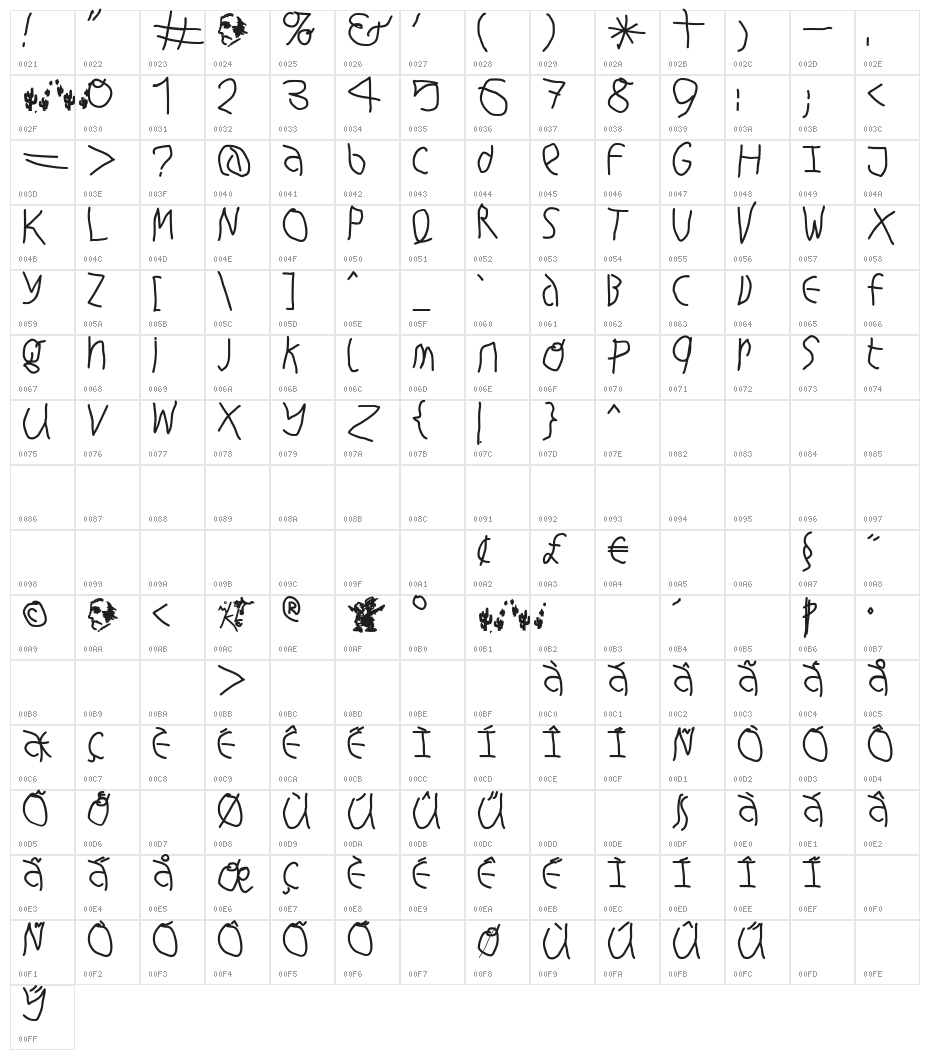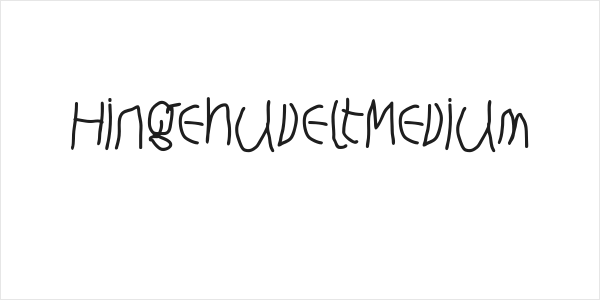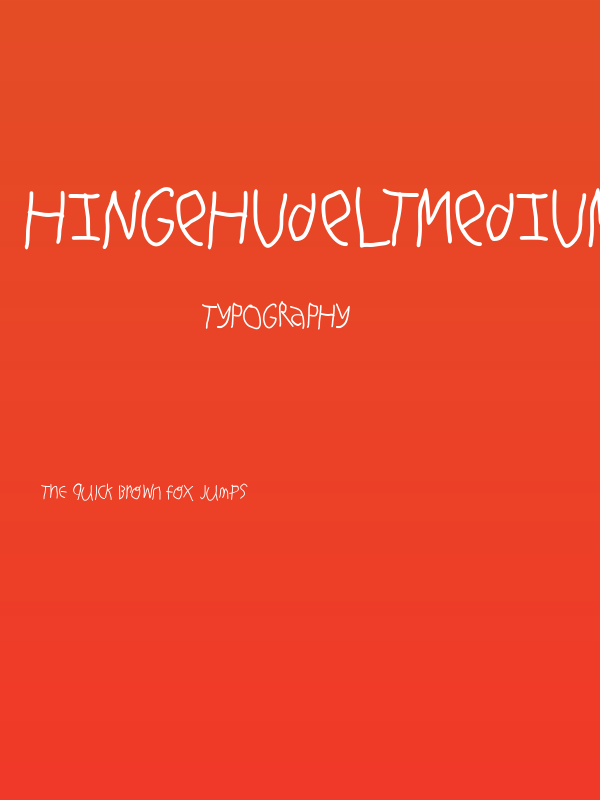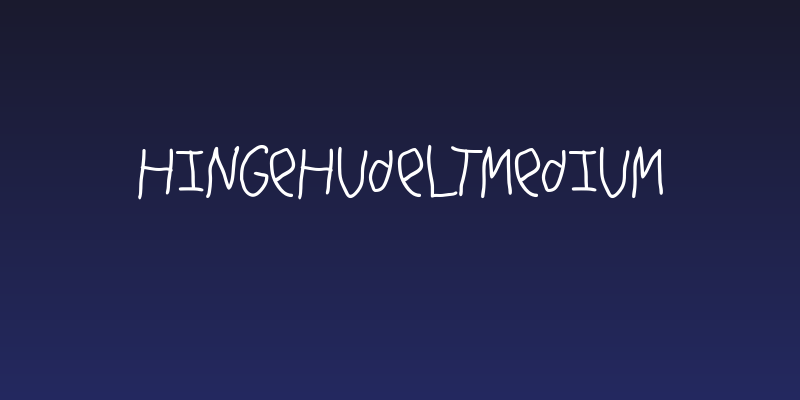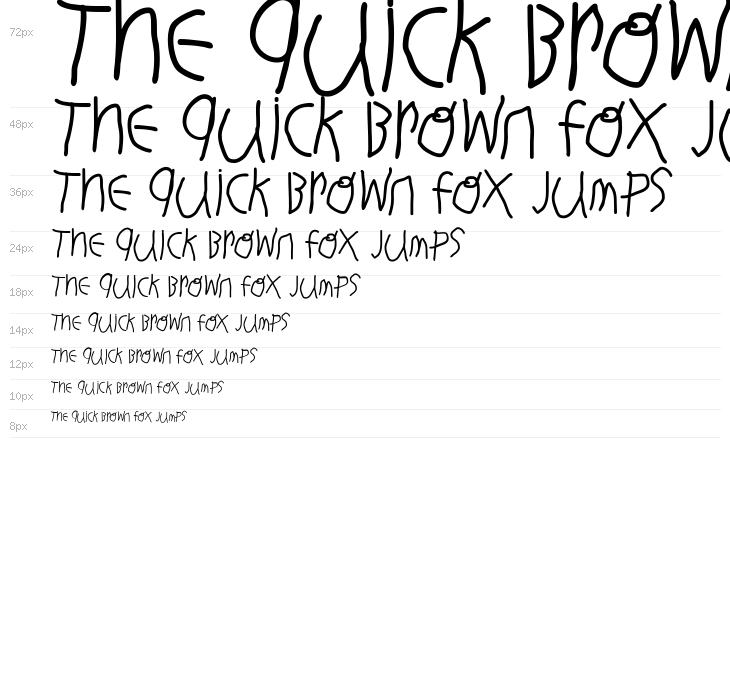
HingehudeltMedium Font
HingehudeltMedium Description
This font features a playful and whimsical handwritten style, characterized by its irregular and organic letterforms. Each character appears as though it has been drawn with a casual, freehand approach, giving it a unique and personal touch. The strokes are uneven, with varying thicknesses that add to its informal and artistic appeal. The overall appearance is lively and dynamic, making it suitable for creative and informal projects. The font includes a full set of uppercase and lowercase letters, numbers, and a variety of special characters, all maintaining the same quirky and spontaneous style.
| Use Case | Logos, Headlines, Informal Text |
| Proposed Projects | Ideal for greeting cards, children's books, creative posters, and informal branding. |